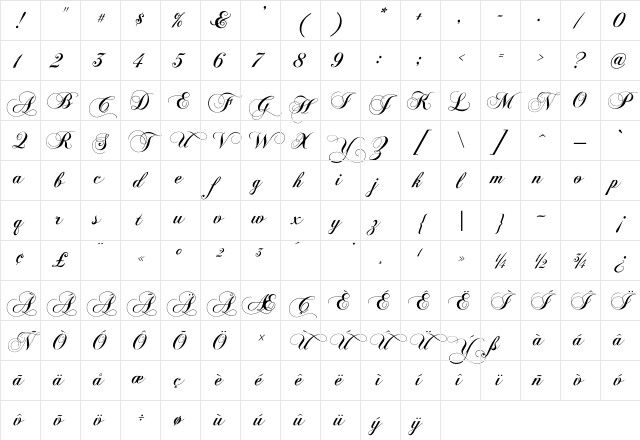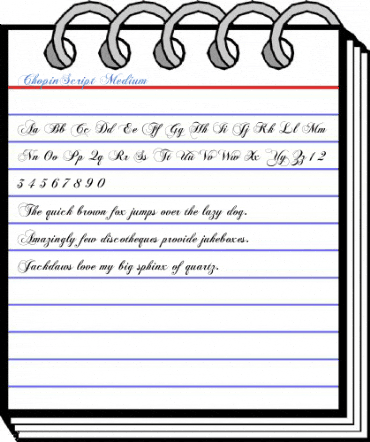
ChopinScript Regular Free Font
ChopinScript Regular
Design Context for ChopinScript
ChopinScript flows with the natural rhythm of handwritten lettering, making it ideal for designs that call for warmth and personal expression.
Font Pairing: Combine ChopinScript with a simple geometric sans for maximum contrast - the tension between flowing curves and clean structure is a classic typographic pairing.
Pro Tip: Use ChopinScript for short runs of text - names, titles, or taglines. Extended body copy in script faces tires the eye quickly.